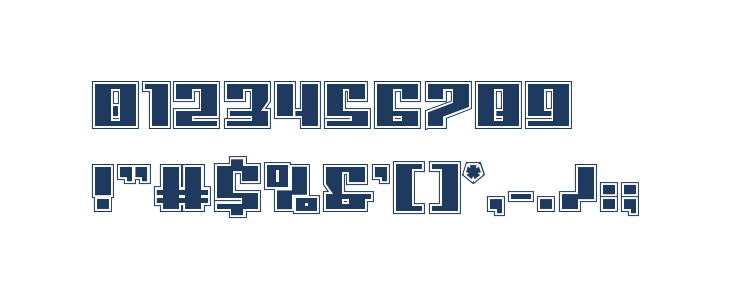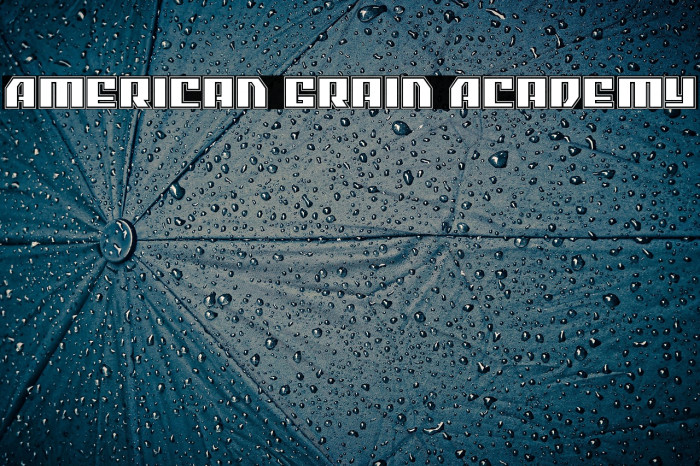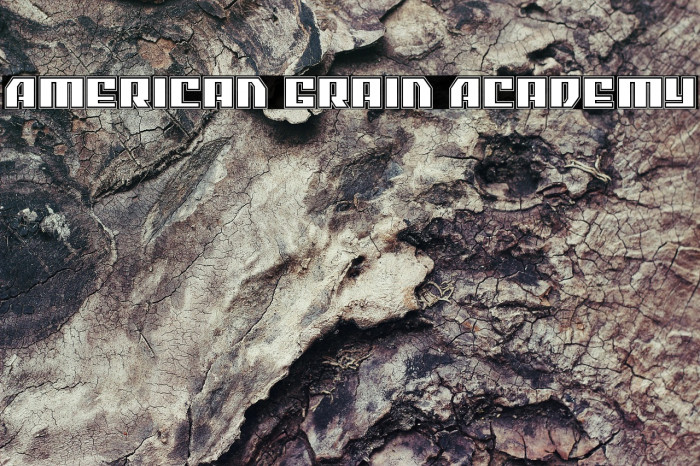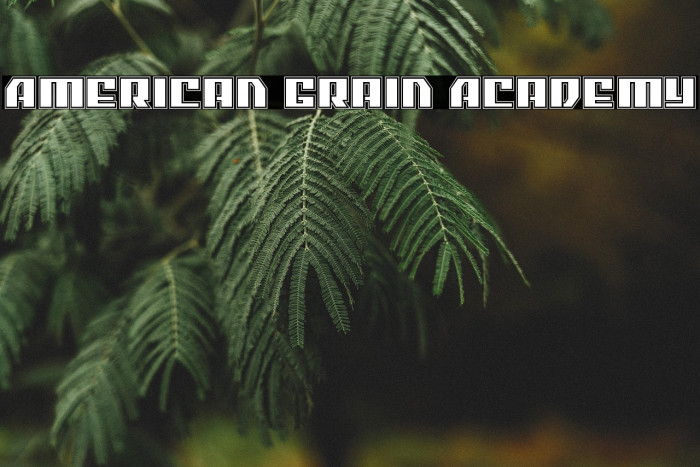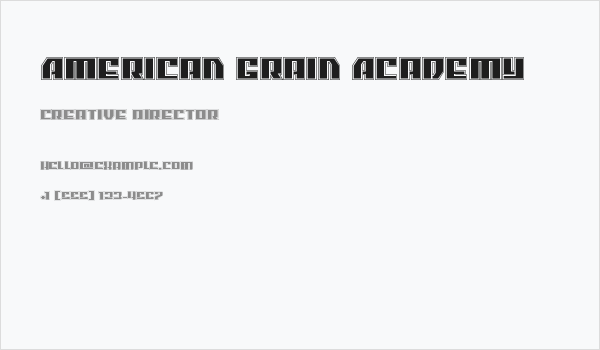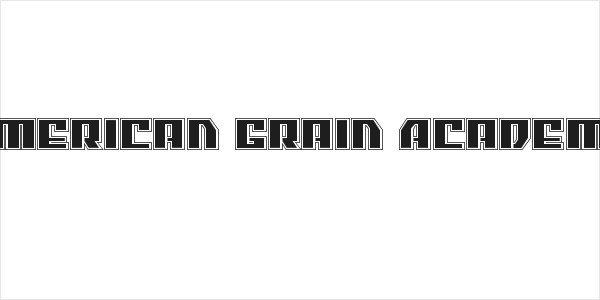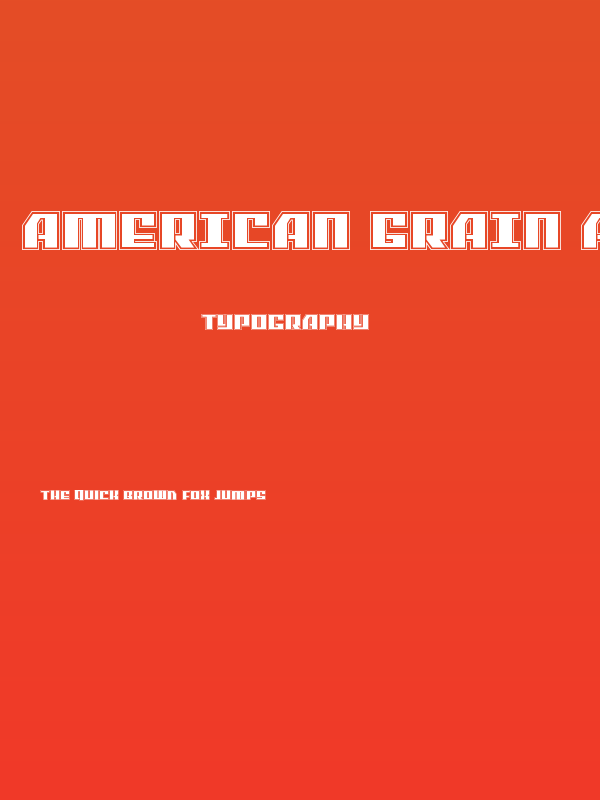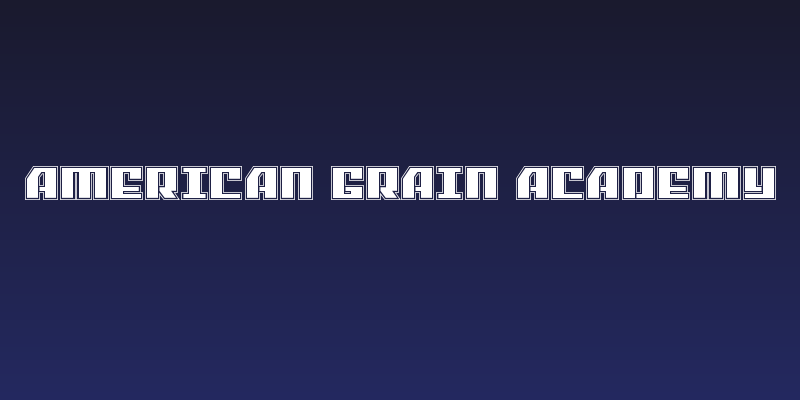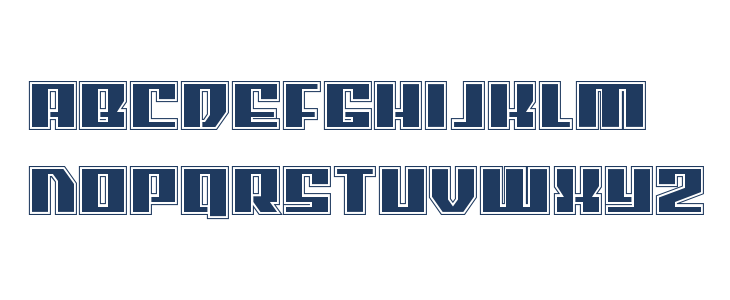
American Grain Academy Font
American Grain Academy Description
This font features a bold, geometric design with a strong presence. Each character is outlined with a thick border, creating a striking contrast between the filled and unfilled spaces. The angular, block-like shapes give it a futuristic and industrial feel, making it stand out in any design. The uppercase and lowercase letters maintain a consistent style, with sharp edges and uniform height, while the numbers and special characters follow the same bold and structured aesthetic. This font is perfect for projects that require a modern and impactful look.
| Proposed Projects | Ideal for posters, logos, video game graphics, and any project needing a modern, bold statement. |